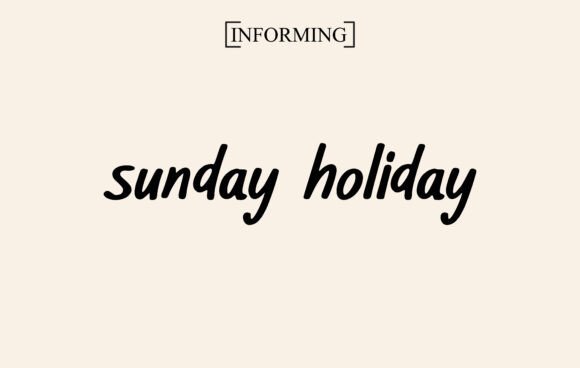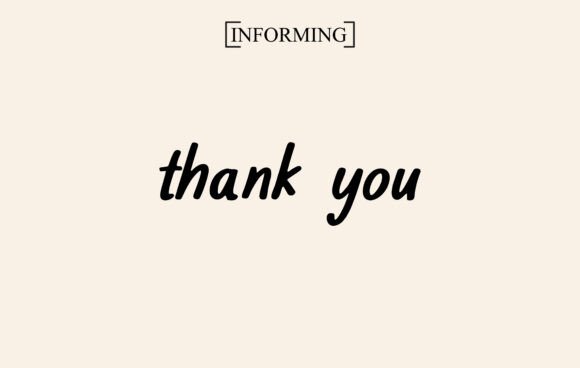
Introduction to Linda Font
Have you ever stared at a blank page, desperate for the perfect font to bring your creative idea to life? The frustration of searching through endless options, only to settle for something that just doesn’t quite cut it, is all too familiar for many designers. But what if I told you that there’s a font that’s about to revolutionize the way you approach your next creative project?
Enter the Linda Font, a true game-changer in the world of design. With its legibility and versatility, this font is the ultimate design resource for anyone looking to elevate their work. Whether you’re working on a magazine headline, a social media post, or a wedding invitation, the Linda Font is the perfect choice.
As a high-quality font that’s available for free download, the Linda Font is a valuable asset for any designer. Its transparent background and crisp, clean lines make it a standout in any design, and its versatility means it can be used in a wide range of creative projects.
Linda Font
- High-quality, elegant font design suitable for various creative projects, such as invitations, posters, and brochures.
- Features a transparent background, allowing for easy layering and customization in design applications.
- Designed with a high-resolution 1024 x 1024 pixels at 300 DPI, ensuring crisp and clear text display.
- Perfect for designers seeking a sophisticated and modern font to enhance their design projects.
- Comes in a single font weight, ideal for creating a consistent and polished look in various creative endeavors.
Honest Review: Linda Font
I recently had the chance to experiment with Linda Font for a creative project, and I must say it’s been a game-changer. The level of detail and care that has gone into designing this font is truly impressive. ✨
- What works well: The high quality of the font is evident, and the transparent background makes it super easy to work with. The font is also incredibly versatile, suitable for a wide range of design applications.
- Limited character set: While the font is incredibly detailed, it’s worth noting that the character set is a bit limited, which may not be suitable for designers working with complex text.
- Not ideal for print: Due to its digital nature, Linda Font may not be the best choice for print-based design projects.
Overall, I’m thoroughly impressed with Linda Font, and I think it’s an excellent resource for designers working on digital projects. Its high quality and versatility make it a great choice for creative projects, and the free download option is a definite bonus.
Linda Font
Linda Font is a versatile design resource ideal for creative projects. Its transparent background and high quality make it a popular choice among designers.
Linda Font is suitable for a wide range of creative projects, including brochures, flyers, posters, and social media graphics. It’s also a great choice for branding and identity projects.
Tips for Getting the Most Out of Linda Font
To get the most out of Linda Font, experiment with different font sizes, colors, and styles. You can also use the font in combination with other design elements, such as images and graphics, to create a unique and eye-catching design.
Alternatives to Linda Font
Font Awesome is a popular design resource that offers a wide range of high-quality icons for creative projects. It’s ideal for use in web and mobile applications, and can be easily customized with different colors and sizes. Font Awesome is a great alternative to Linda Font for designers who need a versatile and easy-to-use icon set.
What is the resolution of the Linda Font glyphs?
The glyphs of Linda Font are designed at a high resolution of 1024 DPI, ensuring crisp and clear rendering in various design applications and sizes. This high-quality design allows for precise control over typography and layout in your creative projects.